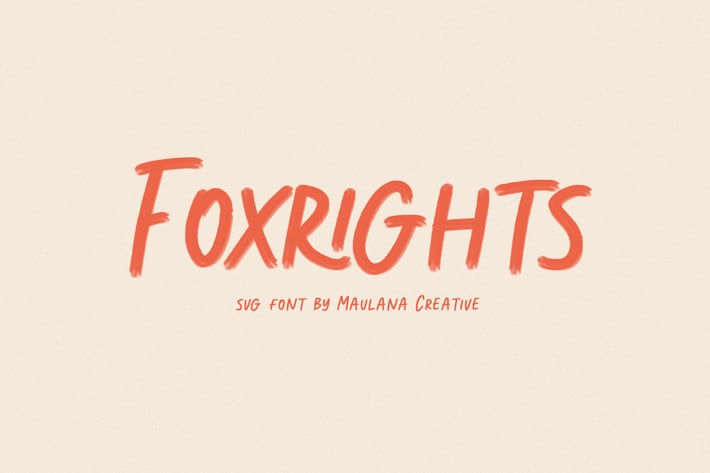
Foxright Svg Brush Font
Foxrights is an SVG Handwritten font, with bold stroke, a bit slant and fun character. It has Opentype features ligatures of character SVG and Regular, To give you an extra creative work. Foxrights SVG font support multilingual more than 100+ language. This font is good for logo design, Social media, Movie Titles, Books Titles, a short text even a long text letter and good for your secondary text font with sans or serif. Make a stunning work with Foxrights font.